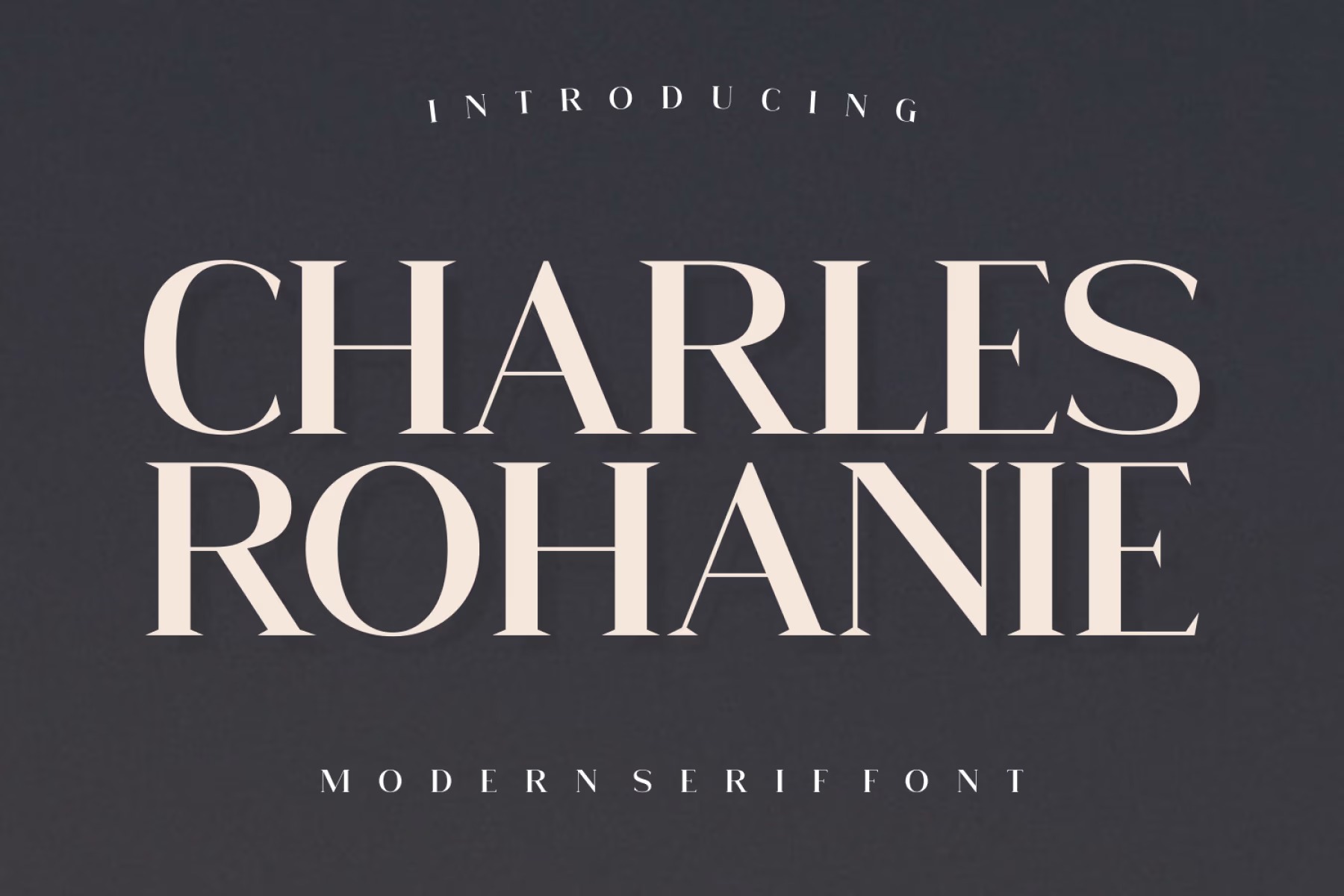
Charles Rohanie – Modern Serif Font
Charles Rohanie – Modern Serif Font is a clean and thoughtfully built typeface that works seamlessly for both professional branding and everyday creative uses. Charles Rohanie is a stylish and elegant serif font. No matter the topic, this font will be an incredible asset to your fonts’ library, as it has the potential to elevate any creation.